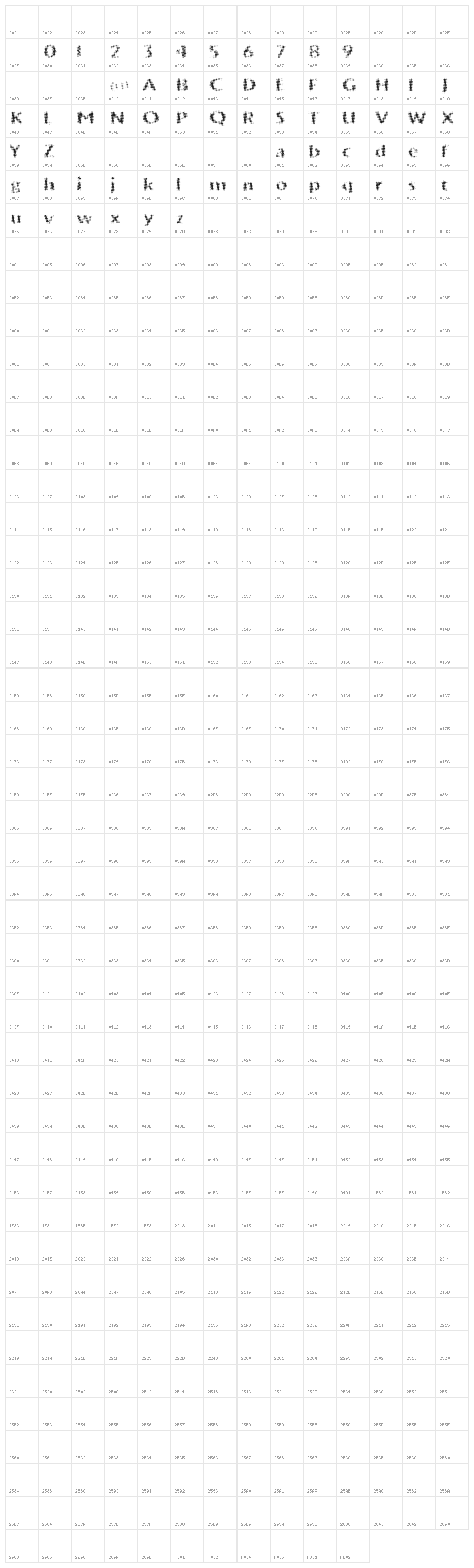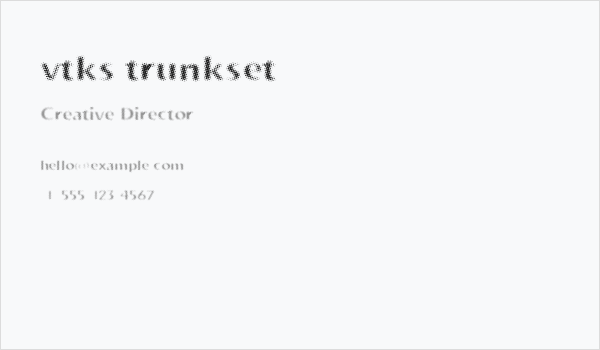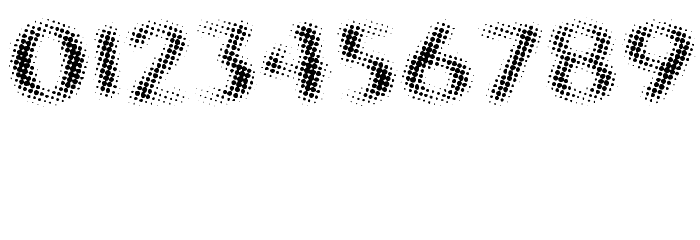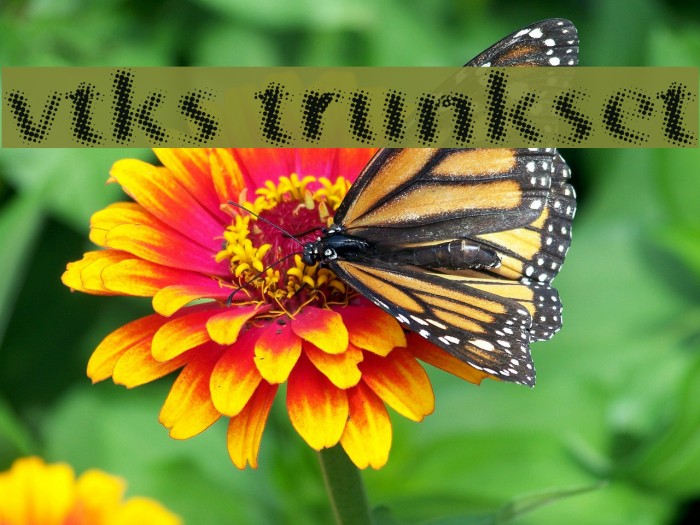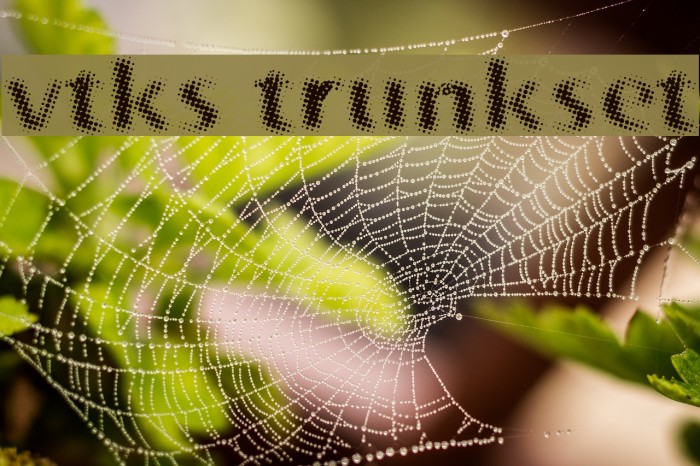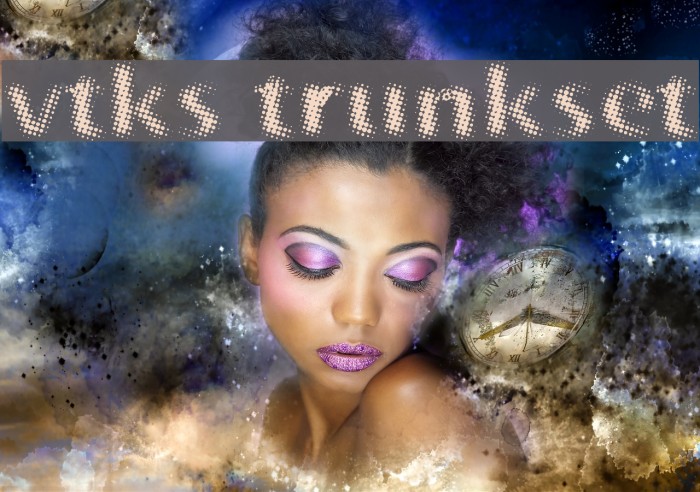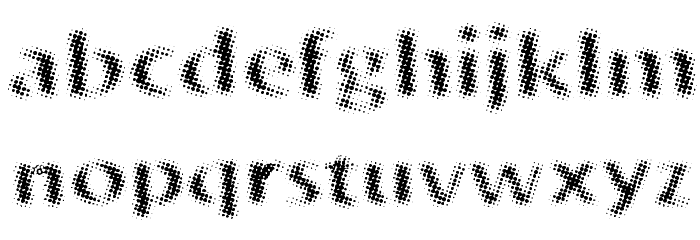
vtks trunkset Font
vtks trunkset Description
This font features a unique halftone pattern that gives it a textured, dotted appearance. The characters are bold and slightly slanted, creating a dynamic and energetic feel. The uppercase and lowercase letters maintain a consistent style, with rounded edges and a playful, informal look. The numbers and special characters follow the same design, ensuring a cohesive appearance across all elements. This font's distinctive style makes it stand out, offering a modern twist on traditional typography.
| Proposed Projects | Ideal for posters, album covers, branding projects, and any design requiring a bold, eye-catching typeface. |